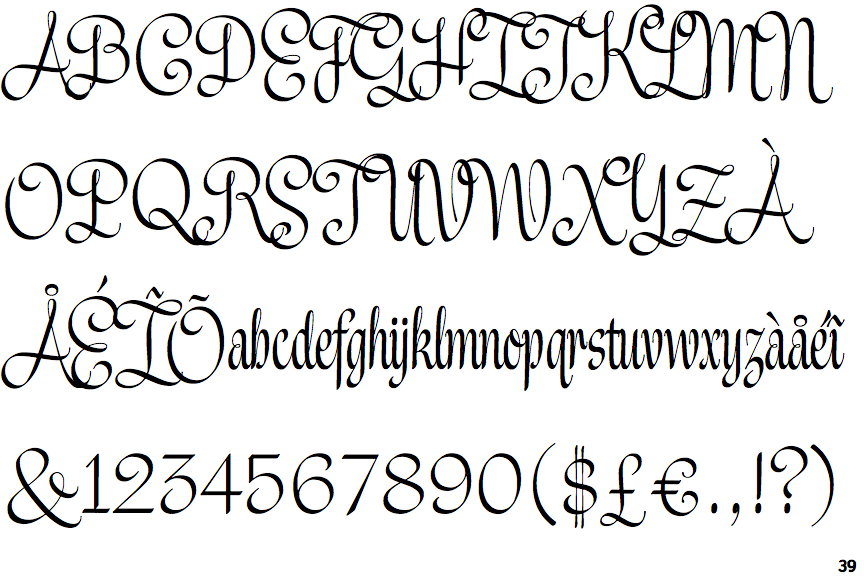
Frauen Script
Based on lettering on the cover of an almanac of Berlin debutantes published in 1945 titled "Die schönsten Frauen der Welt" (The Most Beautiful Women in the World).
Designer: Lucas Sharp Year: 2015 Publishers: Sharp Type and Incubator Among the typefaces chosen in the review Our Favorite Typefaces of 2015 by the on-line journal Typographica. |